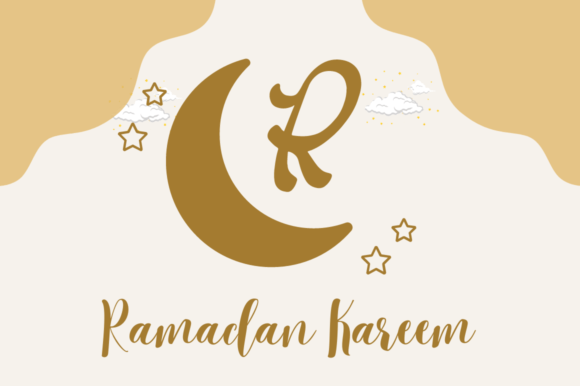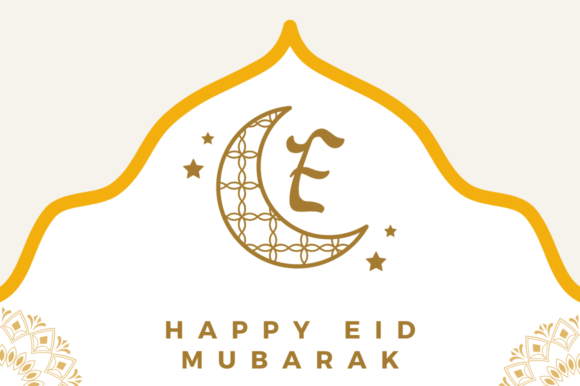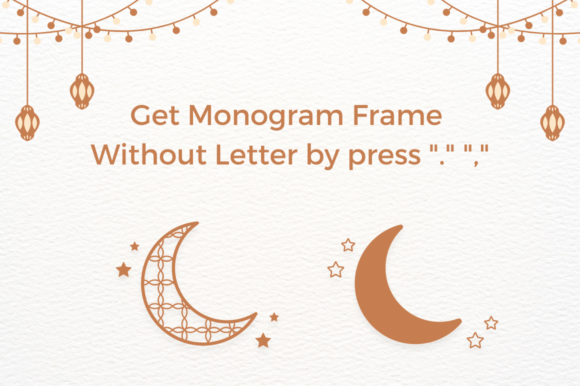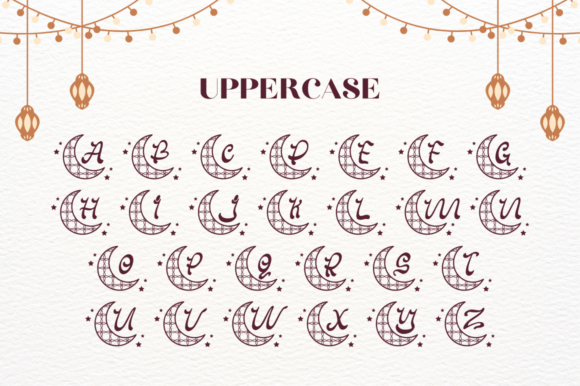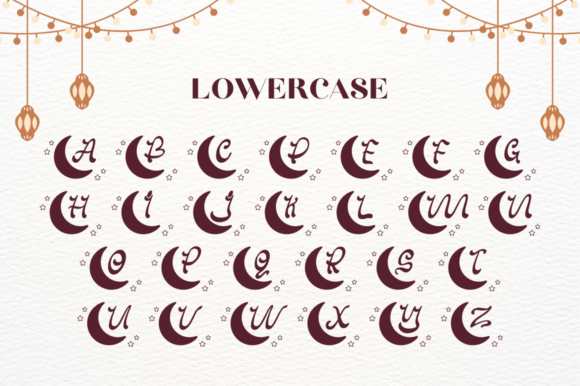
Introducing Alqamar Ramadan Monogram Font: Elevate Your Ramadan Designs
As the holy month of Ramadan approaches, designers and crafters are on the lookout for unique and stylish typography to create stunning visual content. Look no further than the Alqamar Ramadan Monogram Font, a decorative typeface specifically designed with the Ramadan theme in mind. This elegant and stylish font is perfect for creating beautiful invitations, cards, branding materials, and other design projects that require a touch of sophistication and modern flair.
What Makes Alqamar Ramadan Monogram Font Special?
The Alqamar Ramadan Monogram Font boasts a range of features that set it apart from other typefaces. Its clean lines, modern aesthetic, and decorative elements make it an ideal choice for designers seeking to create visually striking content. Here are some of the key characteristics that make this font stand out:
- Elegant Design: The Alqamar Ramadan Monogram Font features an elegant design that exudes sophistication and refinement. Its clean lines and curves create a beautiful, flowing script that is perfect for a variety of design applications.
- Modern Aesthetic: This font’s modern aesthetic ensures that it will complement a wide range of design styles, from traditional to contemporary. Whether you’re creating a Ramadan invitation or a branding material, this font will add a touch of modern flair to your design.
- Decorative Elements: The Alqamar Ramadan Monogram Font includes a range of decorative elements that are specifically designed to enhance your Ramadan designs. These elements can be used to add a touch of festivity and celebration to your content.
Use Cases for Alqamar Ramadan Monogram Font
The Alqamar Ramadan Monogram Font is a versatile typeface that can be used in a variety of contexts. Here are some ideas to get you started:
- Ramadan Invitations: Create stunning Ramadan invitations that set the tone for the festive month. Use the Alqamar Ramadan Monogram Font to add a touch of elegance and sophistication to your designs.
- Greeting Cards: Design beautiful Ramadan greeting cards that feature the Alqamar Ramadan Monogram Font. This font is perfect for creating heartfelt and stylish cards that will be cherished by friends and family.
- Branding Materials: Use the Alqamar Ramadan Monogram Font to create branding materials that reflect the values and spirit of Ramadan. This font is ideal for creating logos, business cards, and other marketing materials that require a touch of elegance and sophistication.
- Social Media Graphics: Create stunning social media graphics that feature the Alqamar Ramadan Monogram Font. This font is perfect for creating visually striking graphics that will engage your audience and add a touch of festivity to your social media content.
Tips for Using Alqamar Ramadan Monogram Font
To get the most out of the Alqamar Ramadan Monogram Font, here are some tips to keep in mind:
- Experiment with Colors: The Alqamar Ramadan Monogram Font looks stunning in a range of colors. Experiment with different colors to find the perfect combination that complements your design.
- Use Decorative Elements: Don’t be afraid to use the decorative elements featured in the Alqamar Ramadan Monogram Font. These elements can add a touch of festivity and celebration to your design.
- Pair with Other Fonts: The Alqamar Ramadan Monogram Font can be paired with other fonts to create a unique and visually striking design. Experiment with different font combinations to find the perfect pairing.
| Author | attypestudio |
The Alqamar Ramadan Monogram Font is a beautiful and elegant typeface that is specifically designed with the Ramadan theme in mind. Its clean lines, modern aesthetic, and decorative elements make it an ideal choice for designers seeking to create stunning visual content. Whether you’re creating Ramadan invitations, greeting cards, branding materials, or social media graphics, this font is sure to elevate your designs and add a touch of sophistication and modern flair.